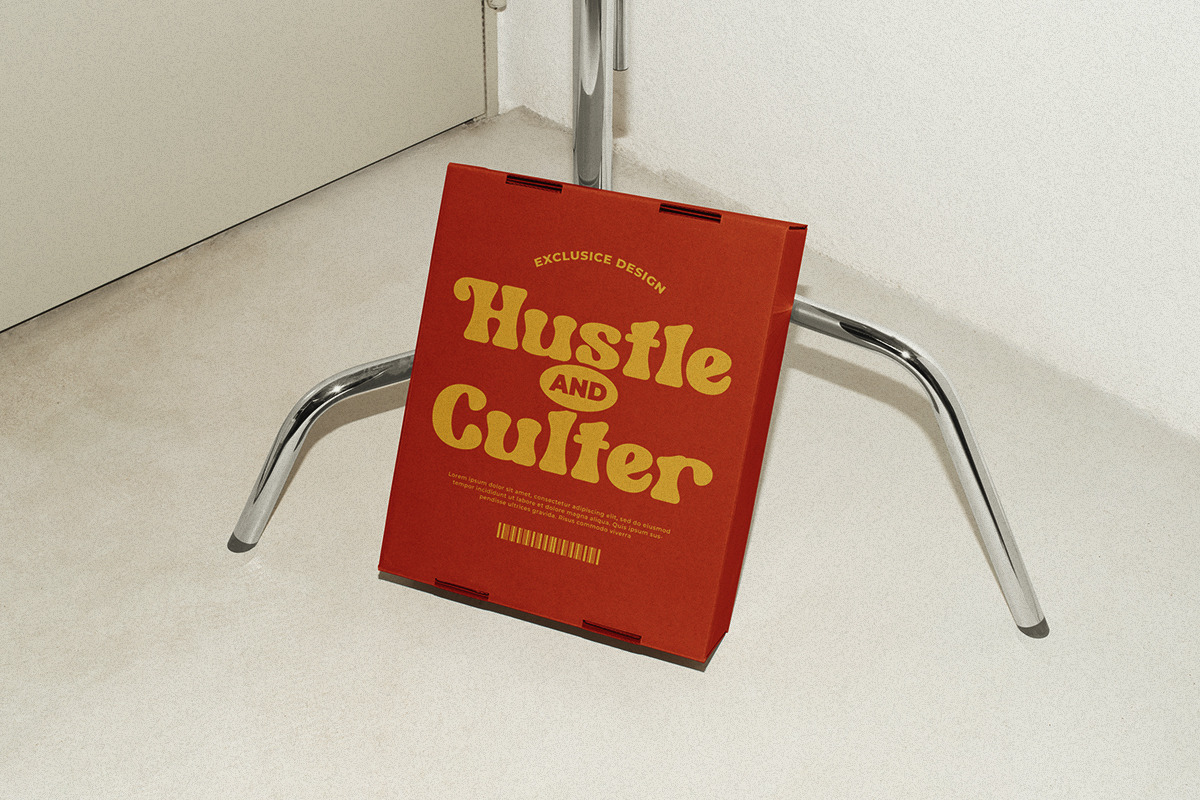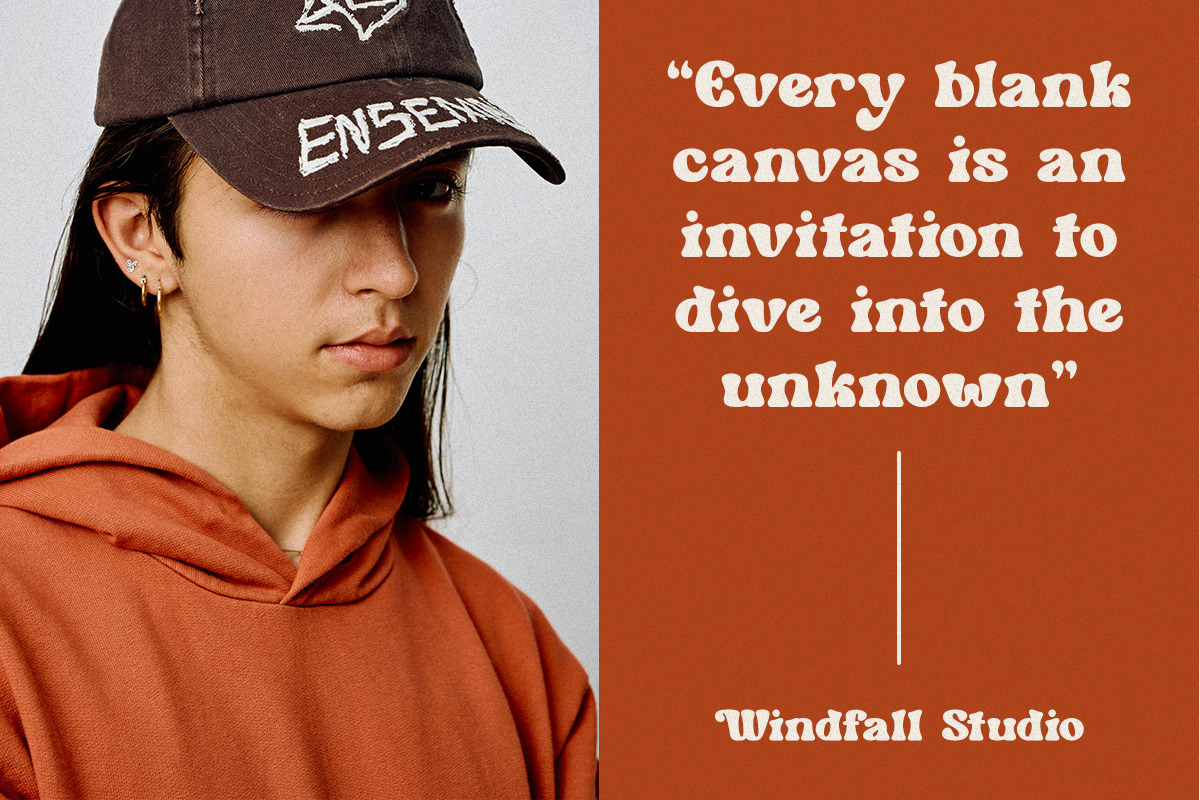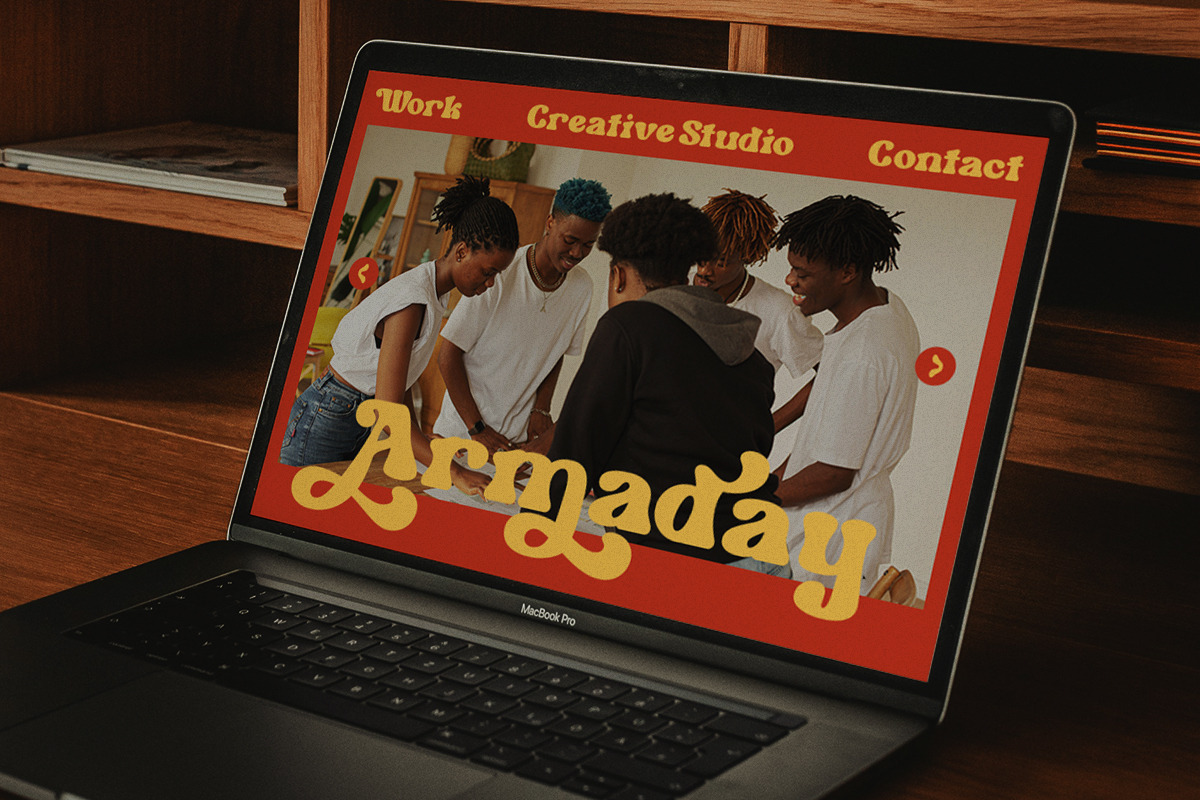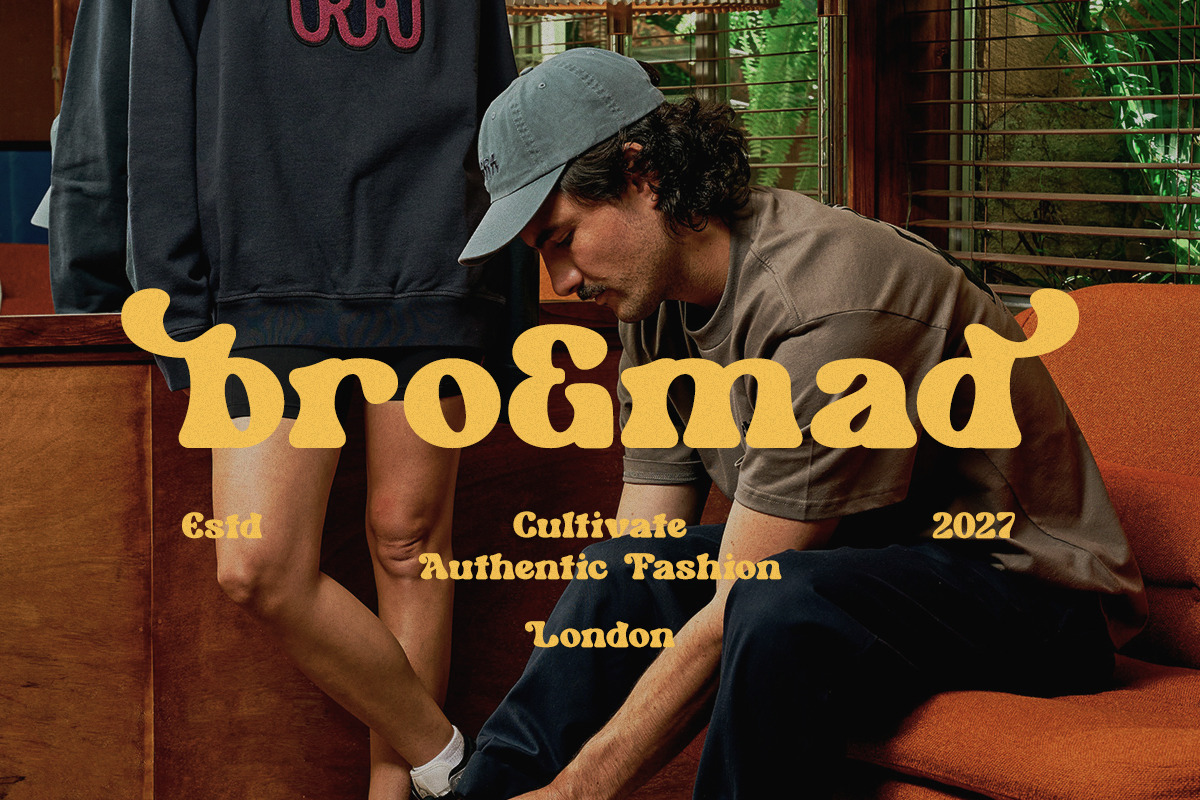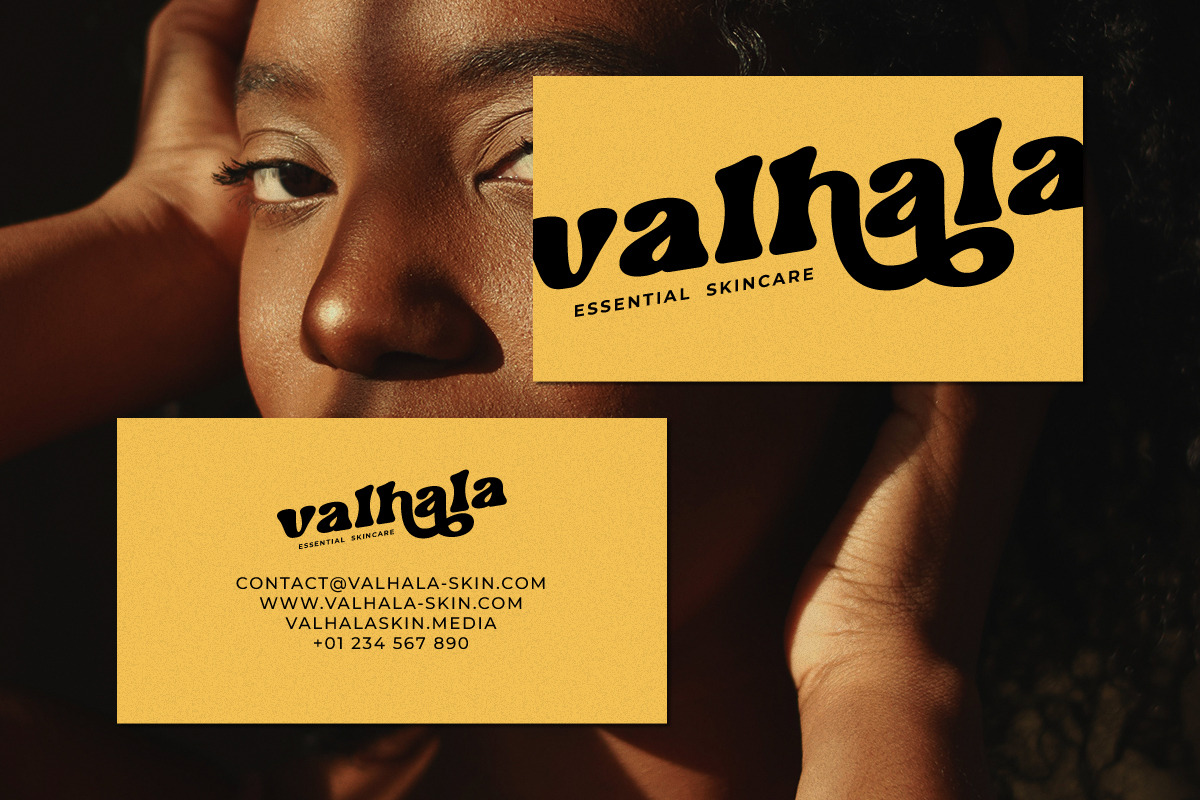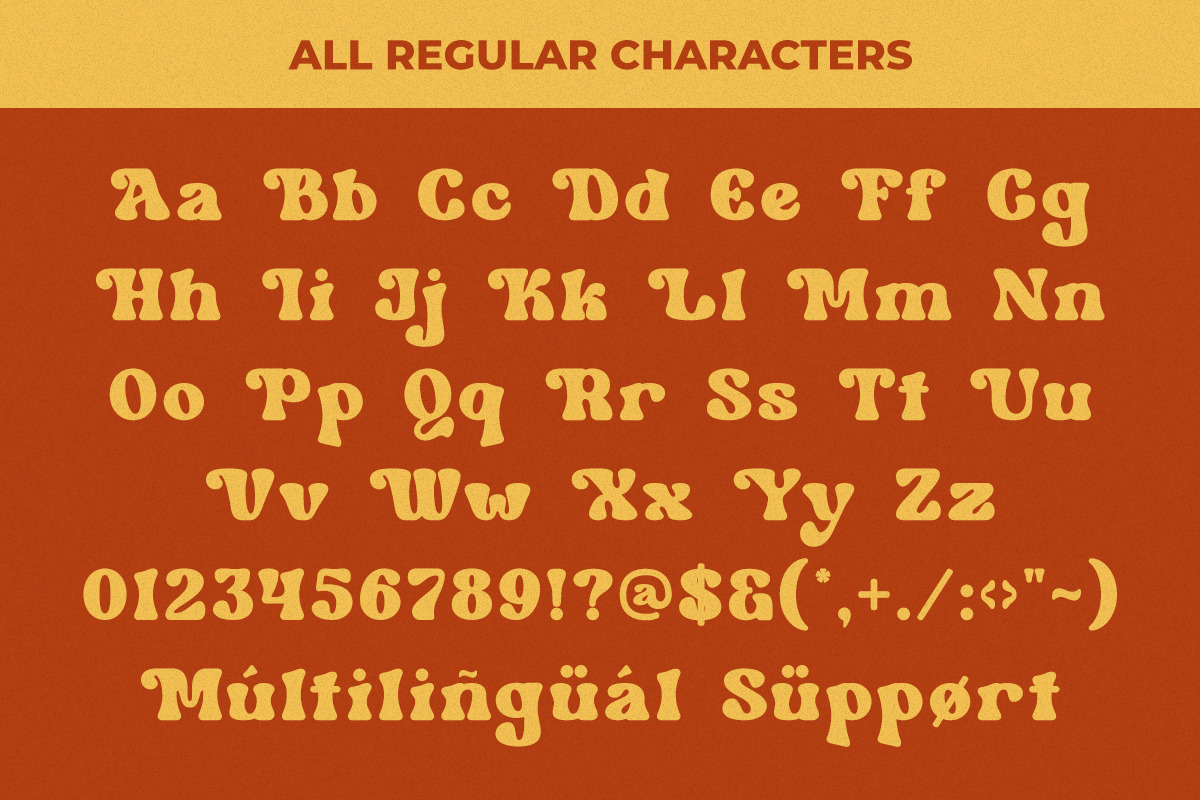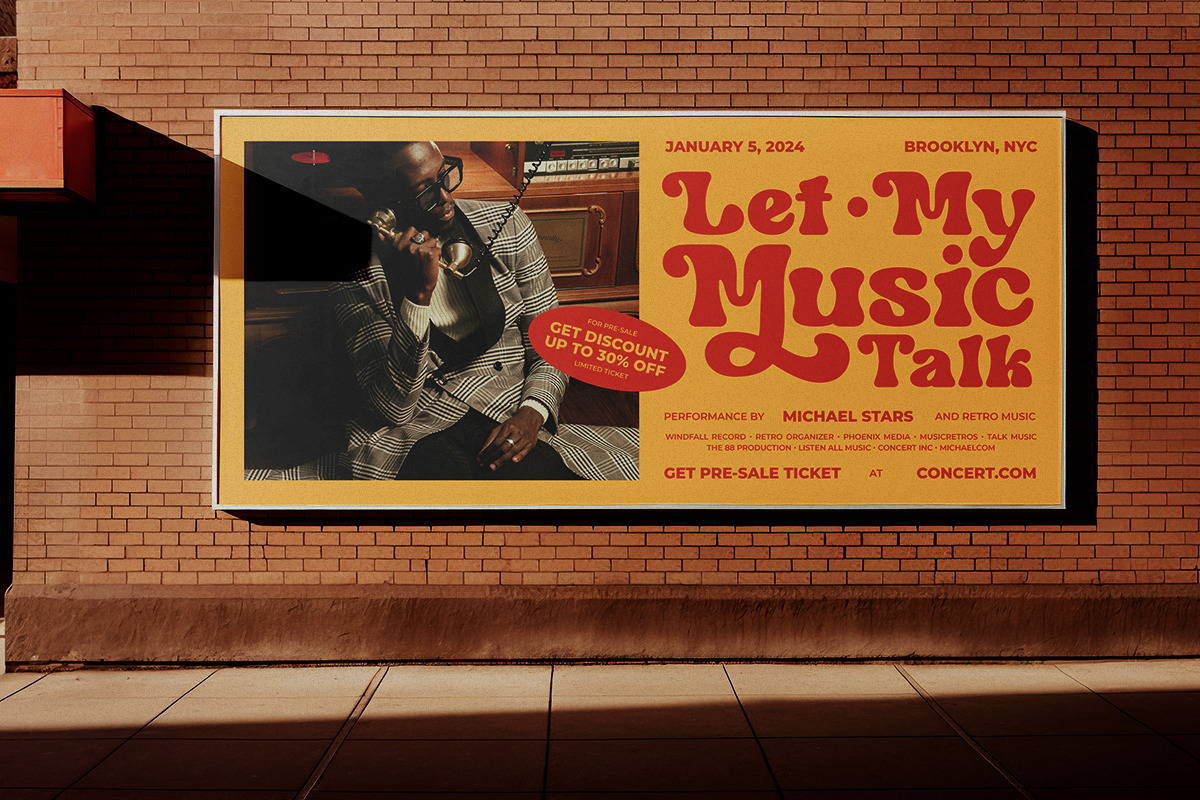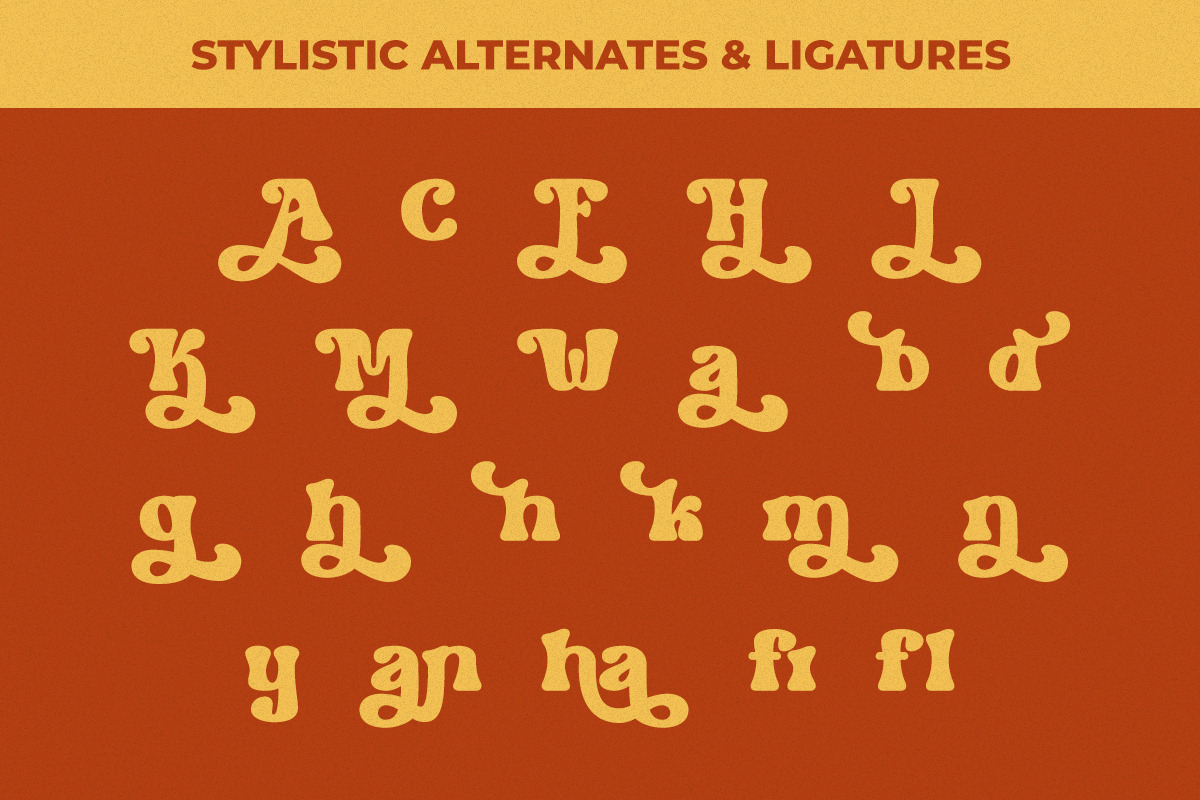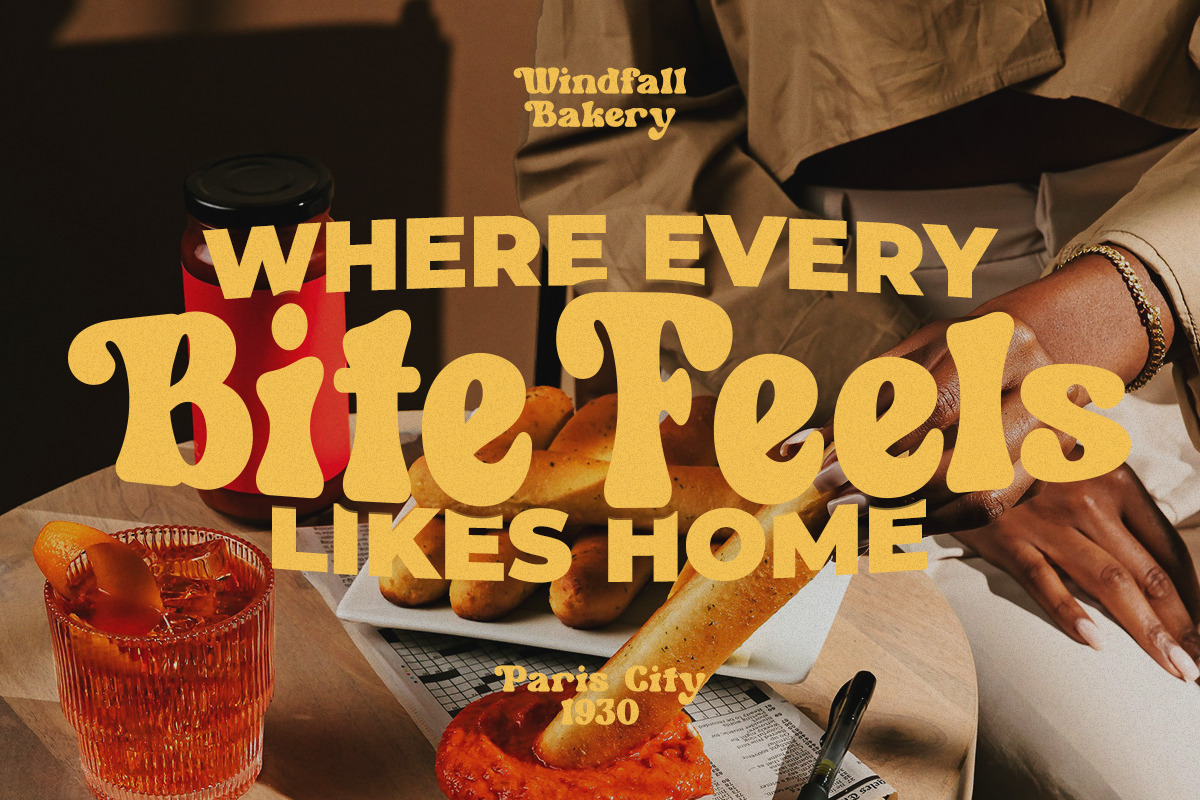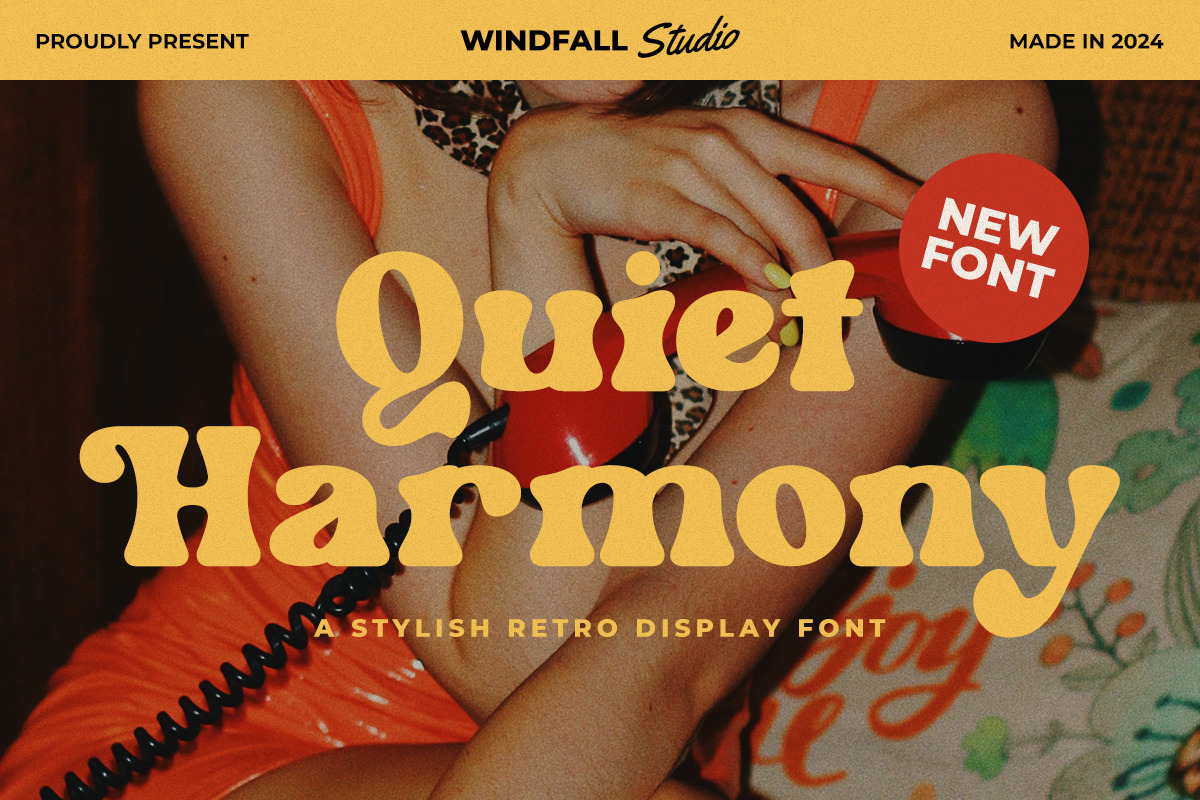
Quiet Harmony - Stylish Retro Font
Introducing Quiet Harmony, a stylish retro display font from Windfall Studio. This font combines the charm of vintage aesthetics with modern design, making it perfect for creating eye-catching headlines, logos, posters, and branding projects. With its unique retro vibe and harmonious curves, Quiet Harmony adds a touch of elegance and nostalgia to any design. Whether you're working on a vintage-inspired project or aiming for a bold, timeless look, this font is your go-to choice for achieving a perfect balance between classic and contemporary styles.